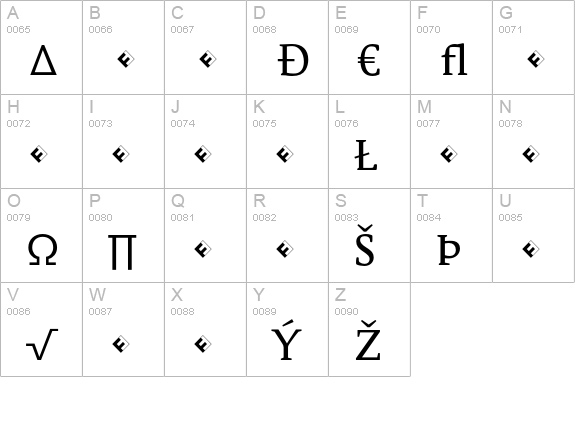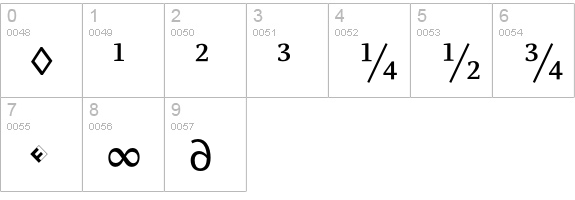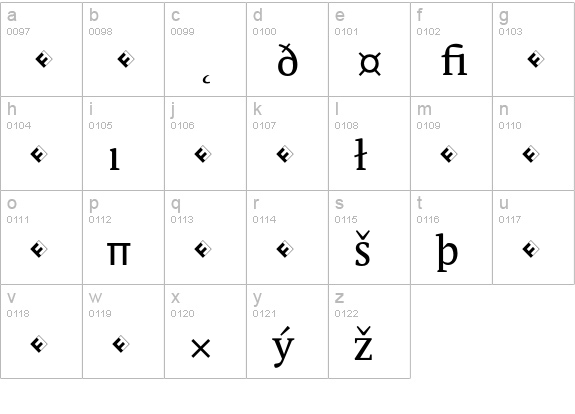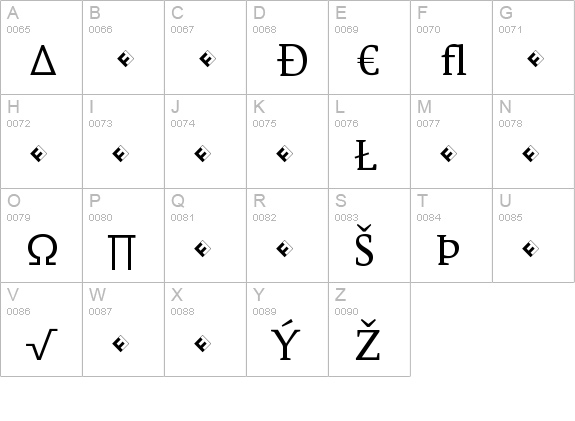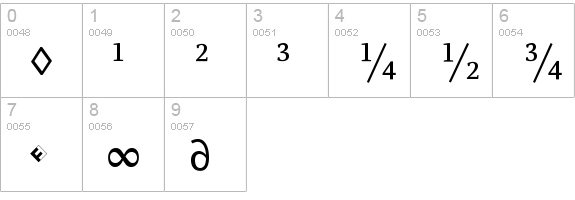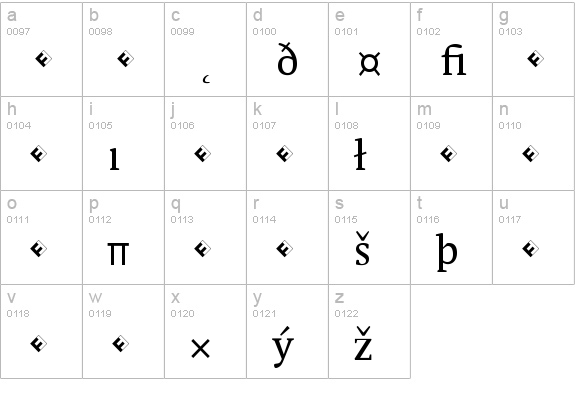
Parable-RegularExpert Font Details
Parable-RegularExpert font is a stunning typeface that combines elegance and sophistication. With its sleek lines and refined curves, this font is perfect for any project that requires a touch of class. Its clean and legible design makes it suitable for both headings and body text, ensuring that your message is conveyed with clarity and style. One of the standout features of Parable-RegularExpert font is its versatility. Whether you are designing a poster, creating a logo, or working on a website, this font can adapt to any context and enhance the overall aesthetic. Its timeless appeal ensures that it will remain relevant for years to come, making it a wise investment for any designer. But what truly sets Parable-RegularExpert font apart is its availability. Unlike many other premium fonts, Parable-RegularExpert font is freely available to download at FontsMarket.com. This means that you can enjoy its beautiful design without breaking the bank. With just a few clicks, you can add this incredible font to your collection and start using it in your projects right away. So, if you are looking for a font that combines elegance, versatility, and affordability, look no further than Parable-RegularExpert font. Download it for free at FontsMarket.com and elevate your designs to new heights.